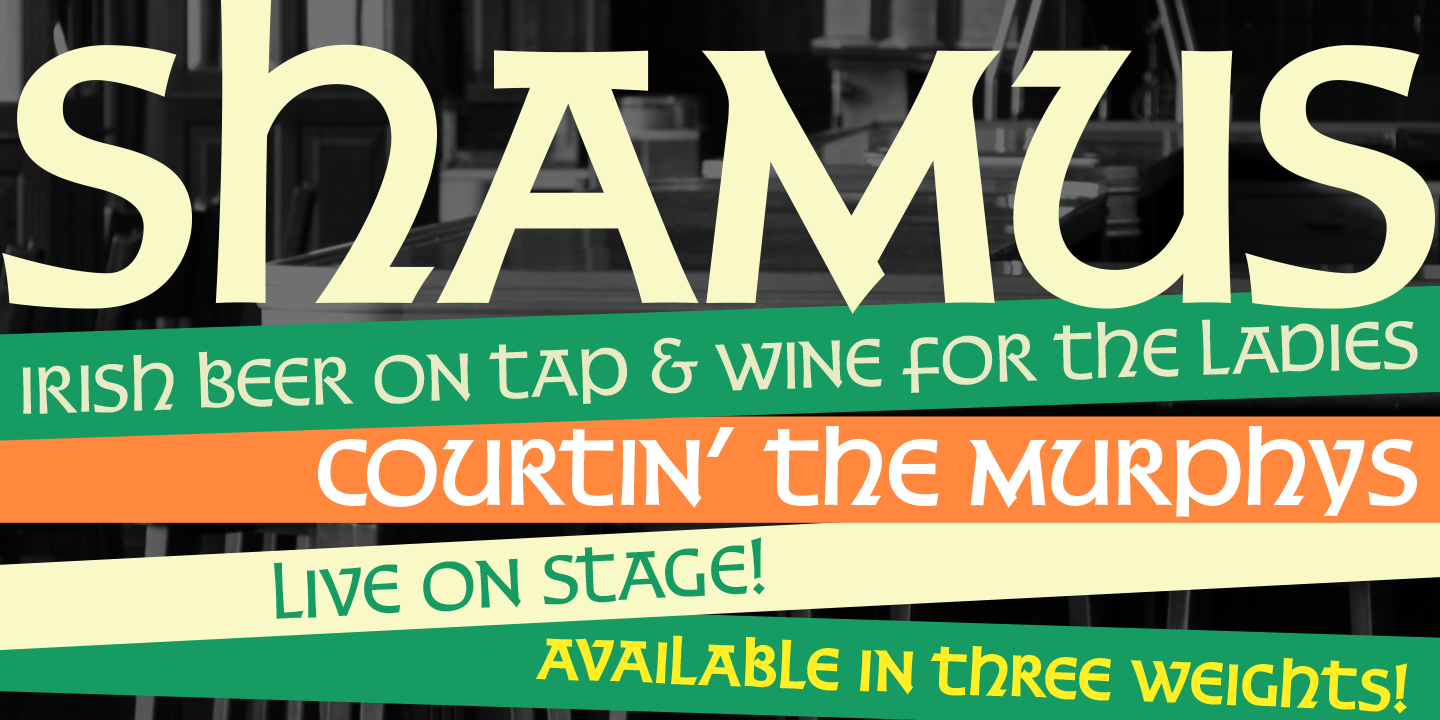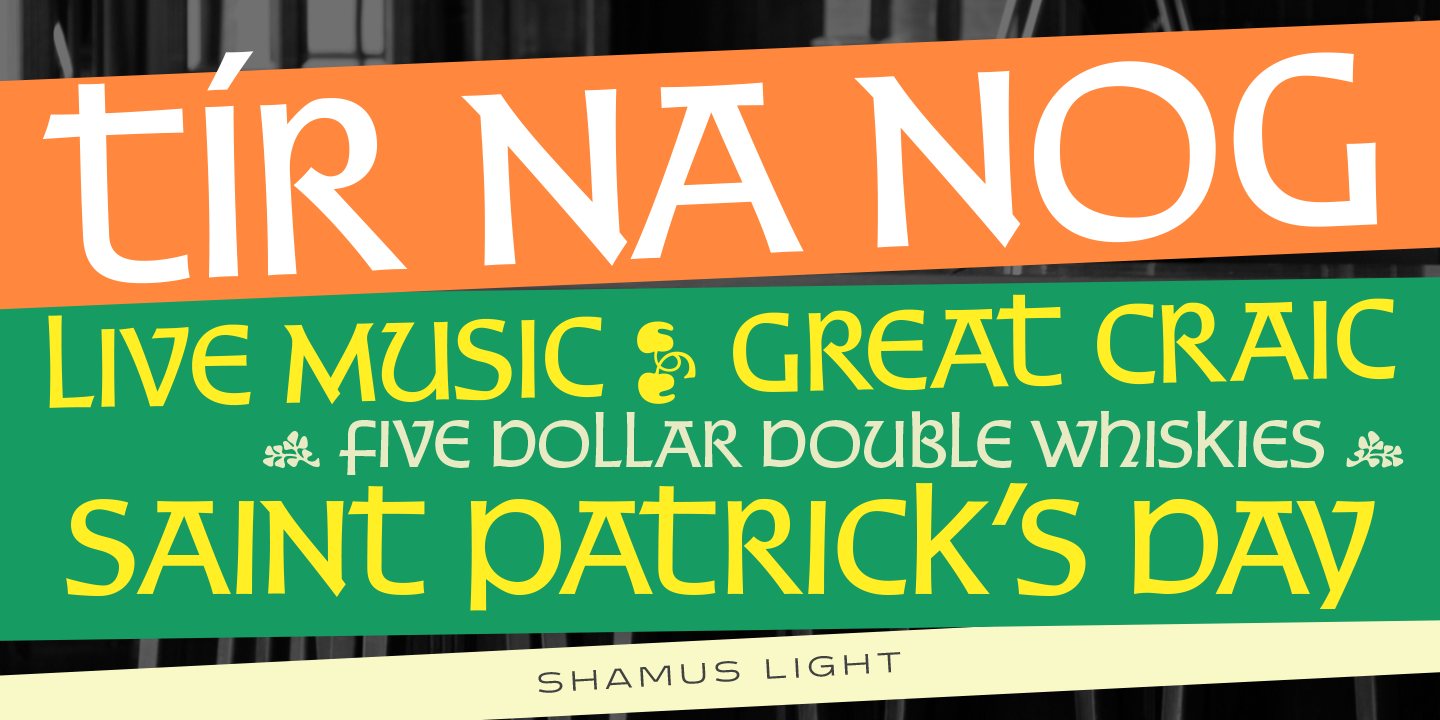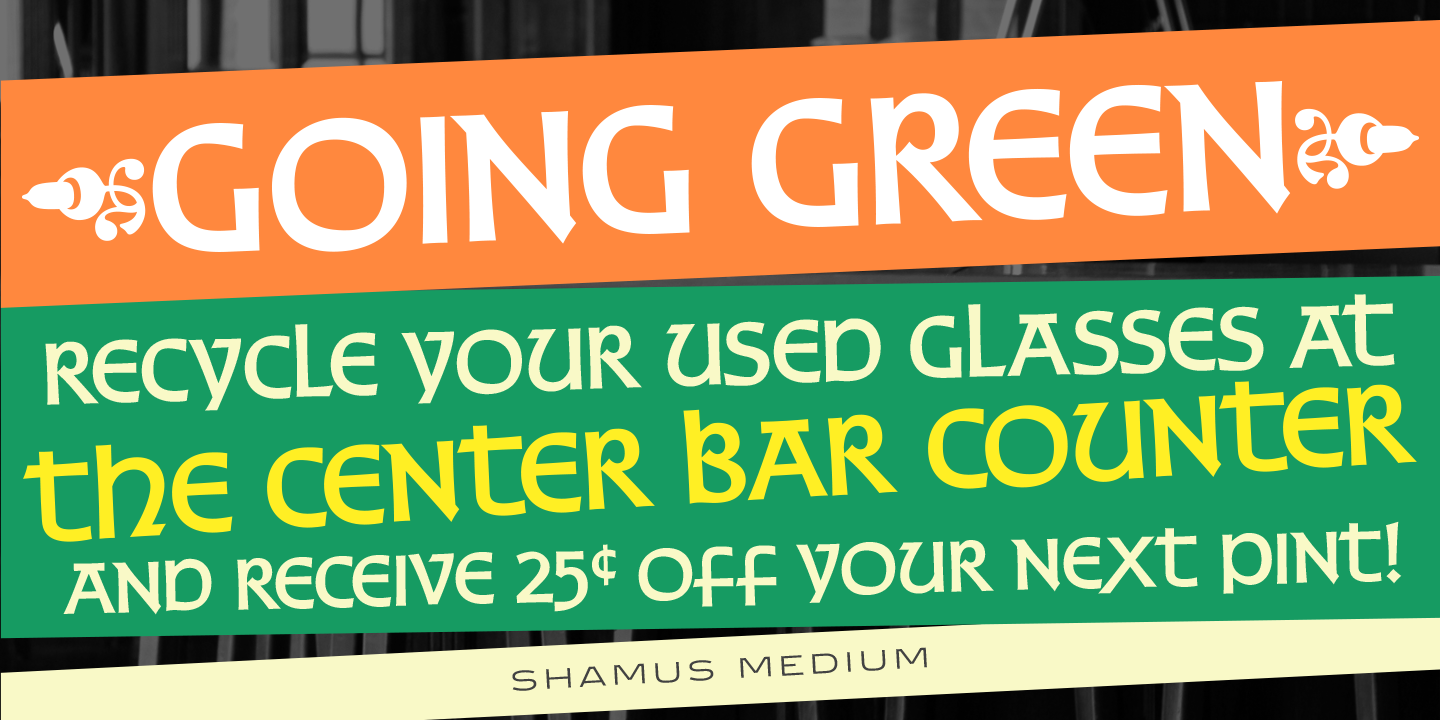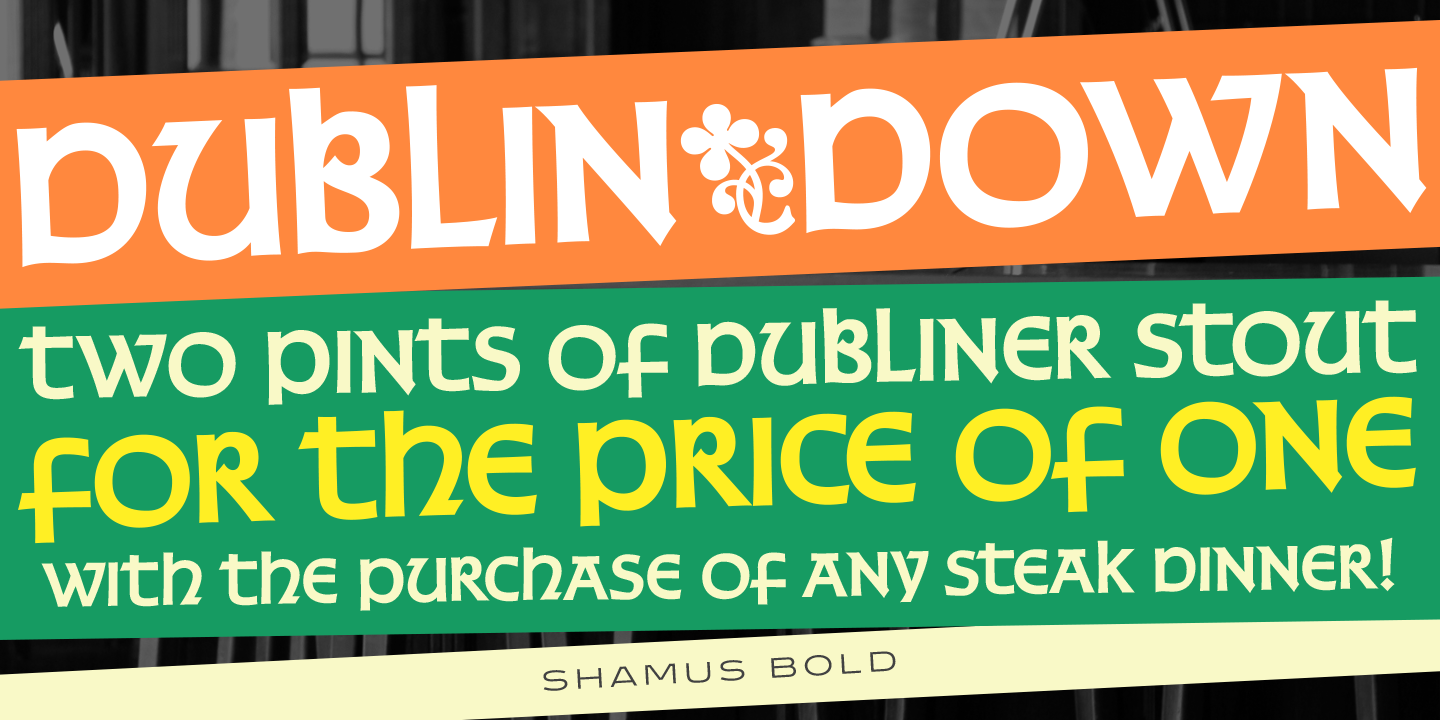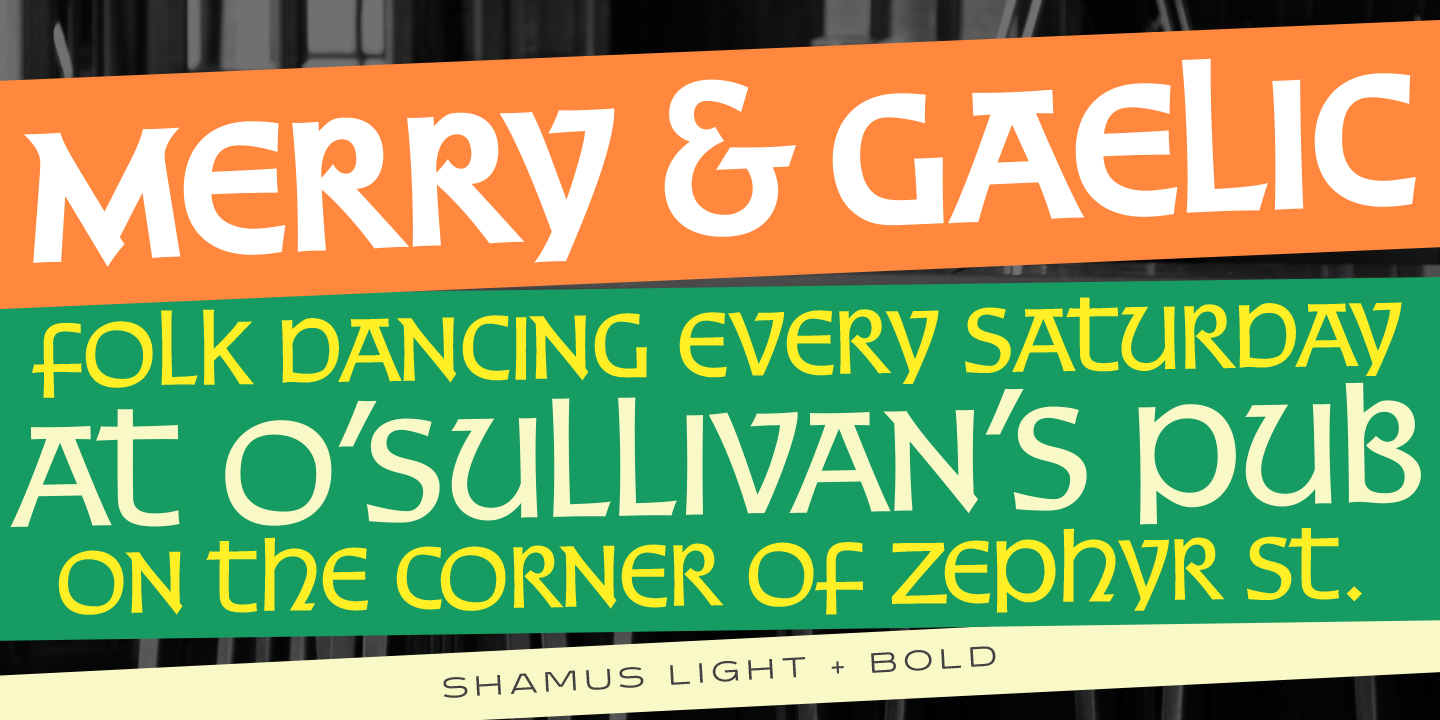
Shamus Font Family
Shamus is an uncial font family designed by Steve Jackaman and Ashley Muir in 2010. As its name suggests, Shamus is a Gaelic-themed script combining uppercase and lowercase characters. Available in Light, Medium, and Bold! Just think of it! Old-fashioned pub and restaurant branding, modern fantasy products, rustic wedding invitations, and travel brochures, Shamus will surely give any project an air of mysticism without the blarney.
OpenType Features
• Common Ligatures
• Fractions
• Ordinal Numerals
• Stylistic Alternates
• Stylistic Sets
• Subscript
• Superscript